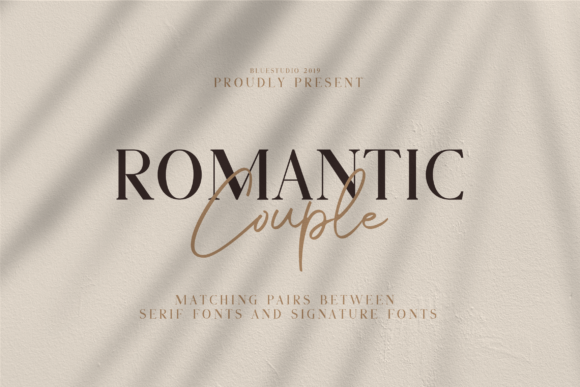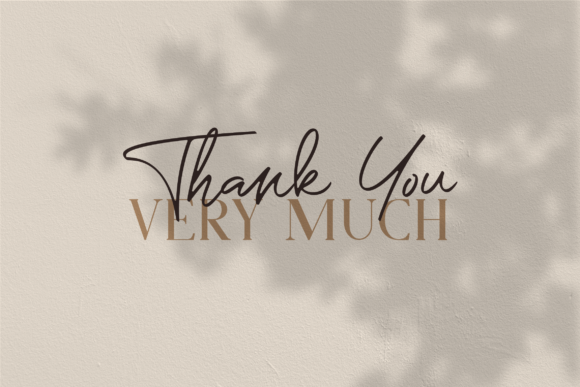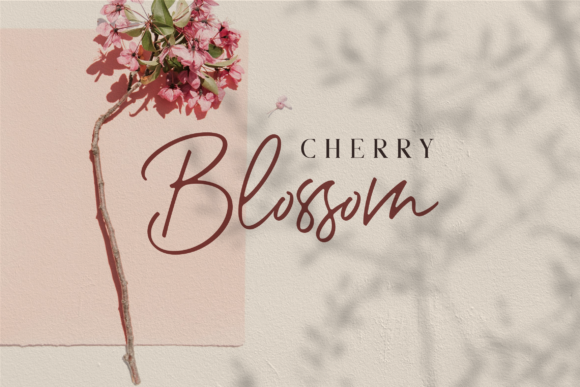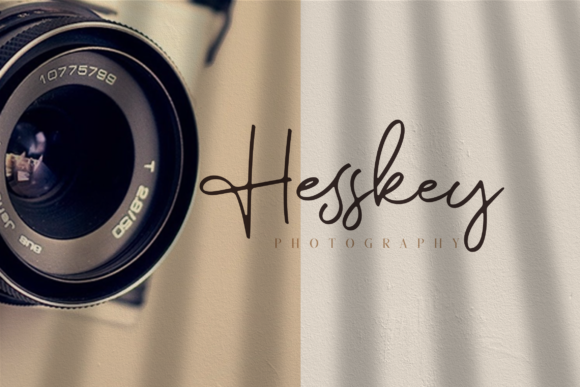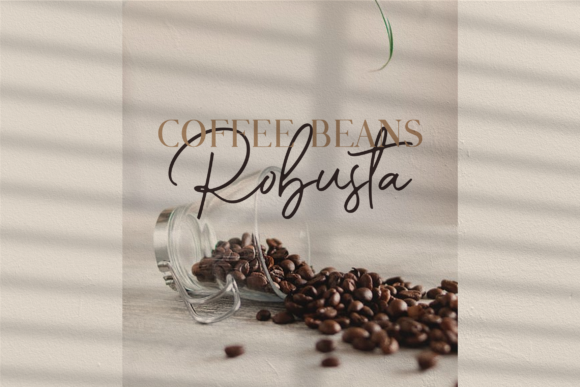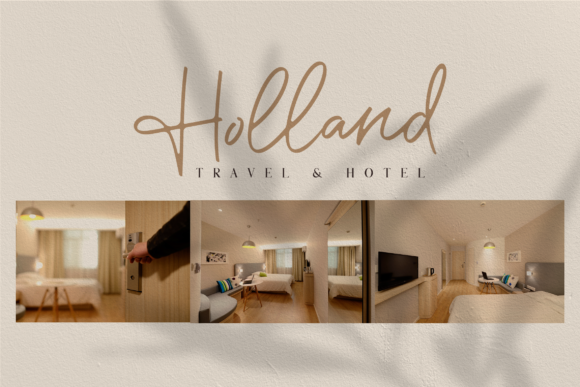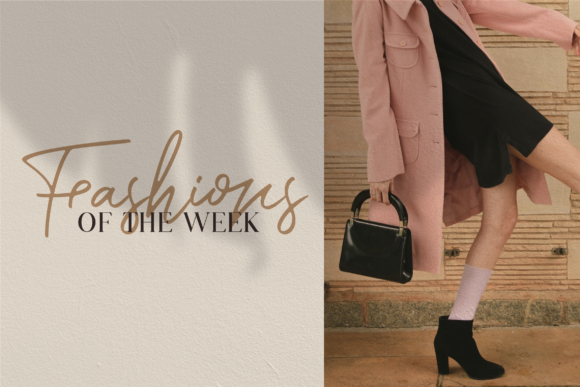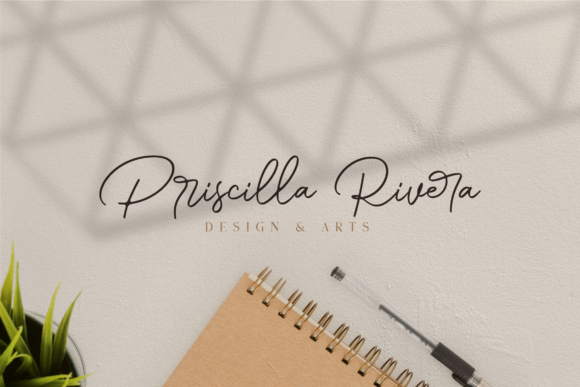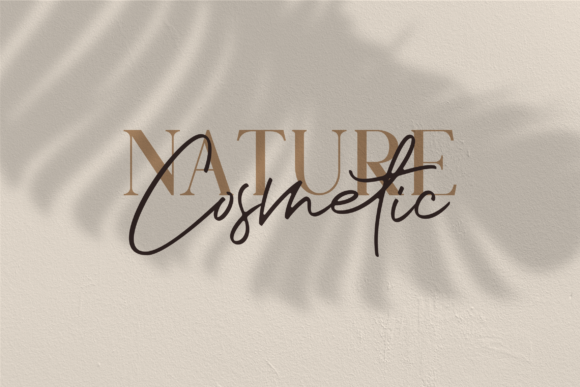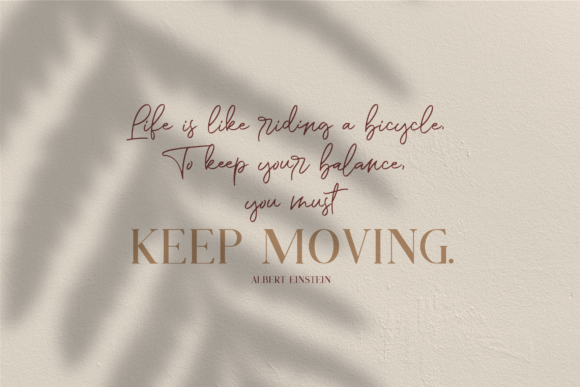
HomeScript FontsRomantic Couple Font Script Fonts Romantic Couple Font FacebookXPinterestWhatsApp Romantic Couple Font Poster 2 Romantic Couple Font Poster 3 Romantic Couple Font Poster 4 Romantic Couple Font Poster 5 Romantic Couple Font Poster 6 Romantic Couple Font Poster 7 Romantic Couple Font Poster 8 Romantic Couple Font Poster 9 Romantic Couple Font Poster 10 About Romantic Couple Font Romantic Couple is a stunning and sweet font dup, bringing together two incredible fonts! DOWNLOAD ON CREATIVE FABRICAThis font is sold and delivered by Creative Fabrica. Font Canyon may earn a commission if you buy through this link. People also explored Marhanita Font Winter Font Debutan Font Bennedik Font Famttura Font Authentica Font Joyful Font Barber Shop Font Congress Font 307 0 TagsRomantic Couple Font Previous articleBeatrise FontNext articleI Believe in You Font LEAVE A REPLY Cancel reply Comment: Please enter your comment! Name:* Please enter your name here Email:* You have entered an incorrect email address! Please enter your email address here Website: Save my name, email, and website in this browser for the next time I comment. Personal Use Free Baveuse Personal Use Free Read more about this font Maharany Personal Use Free Read more about this font Adriator Personal Use Free Read more about this font Gaboed Personal Use Free Read more about this font BLOG To increase your work productivity, choose the most readable fonts. In today's fast-paced work environment, where digital communication and information consumption are integral to our daily routines, the choice of fonts can significantly impact... Free Fonts Risk: Why Free Fonts Can Be Dangerous for Designers Elegant Wedding Invitation Fonts – Handwritten & Script Fonts Top 10 Handwritten Fonts That Elevate Your Designs